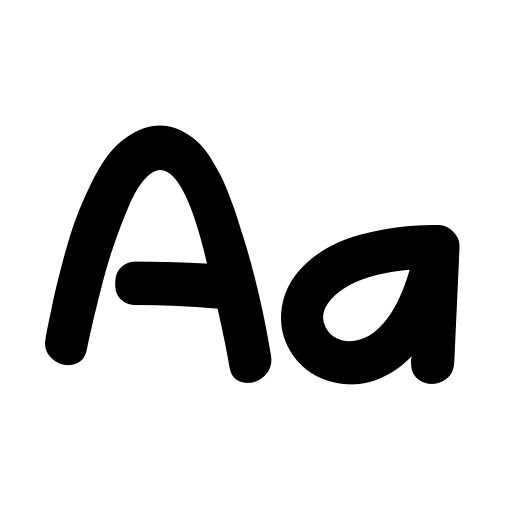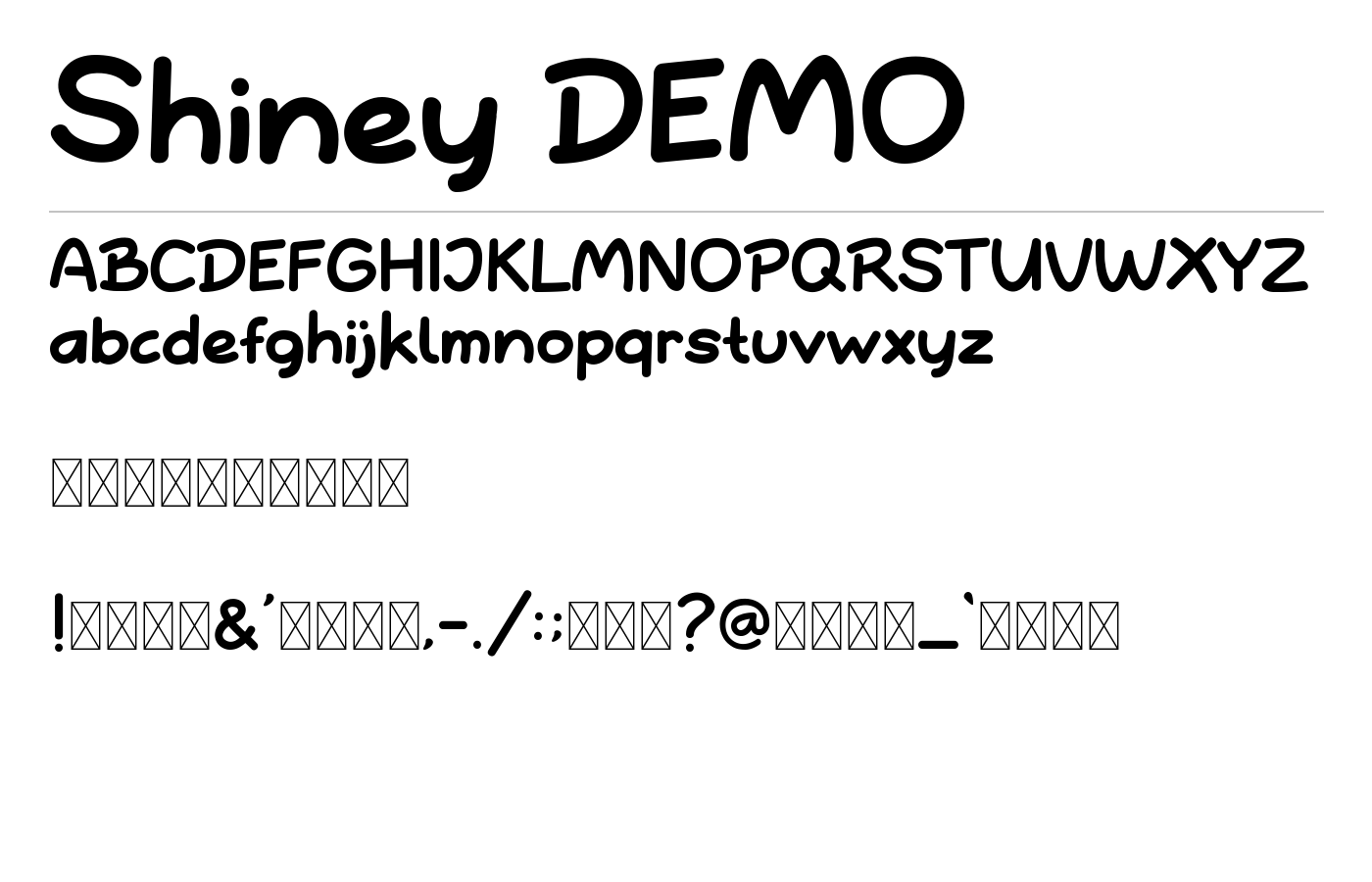
Shiney Display Font
Shiney Display Font is a cute and joyful display font. It is perfect for children themed designs, especially when combined with bright colors. So, enjoy this font and boost up your creativity. This free typeface was designed by talented Mario Dsgn. If you like it don’t forget to check out the full version.